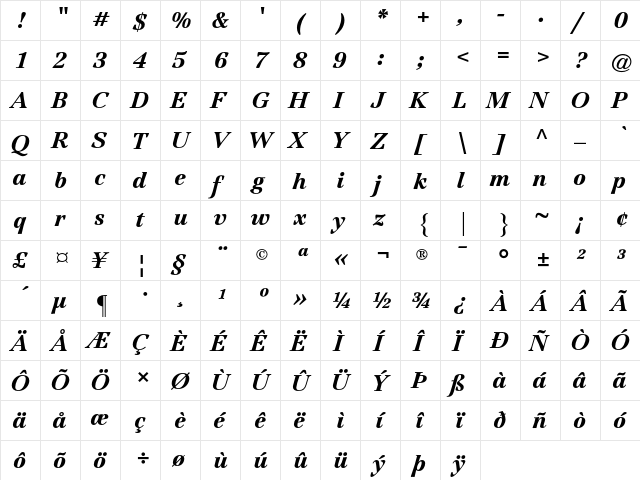
Jamille AT Black Italic
Design Context for Jamille AT Black Typeface
Jamille AT Black offers clean, dependable letterforms without strong stylistic allegiance, making it a practical choice for designers who need flexibility. The dynamic lean of this cut emphasises speed and emphasis in any layout.
Pro Tip: Try Jamille AT Black for annotation and caption copy alongside an upright companion — the contrast in angle creates a dynamic but ordered typographic system.